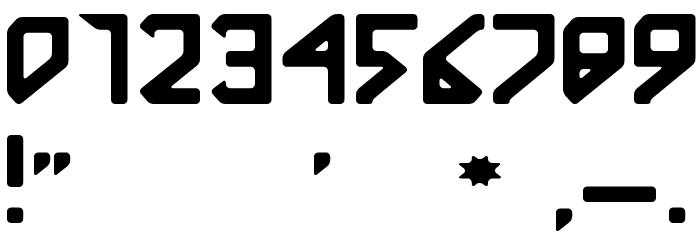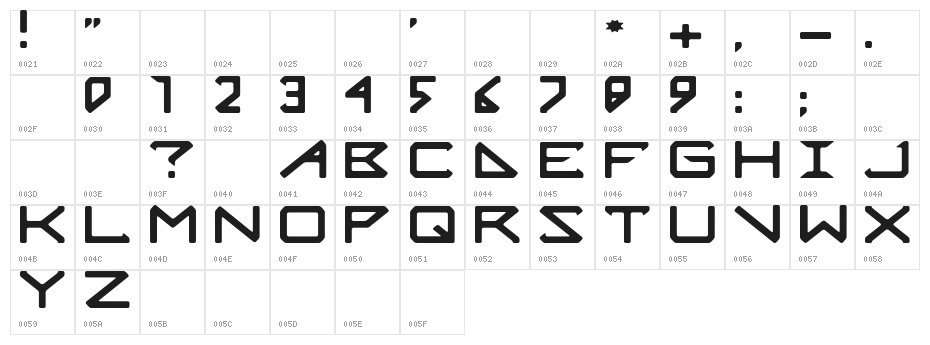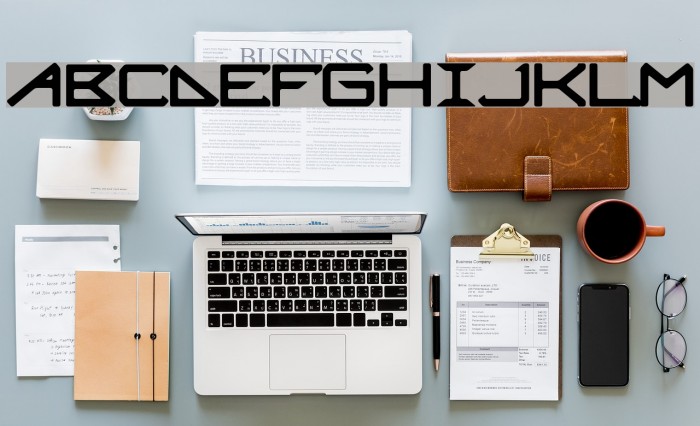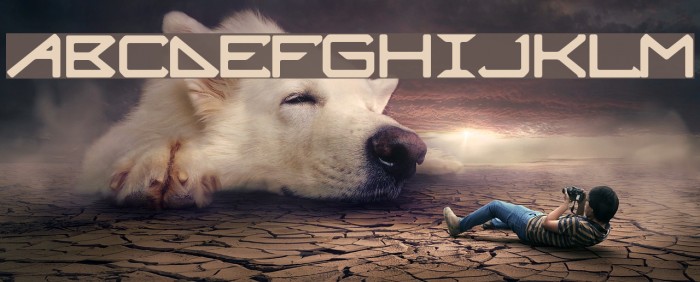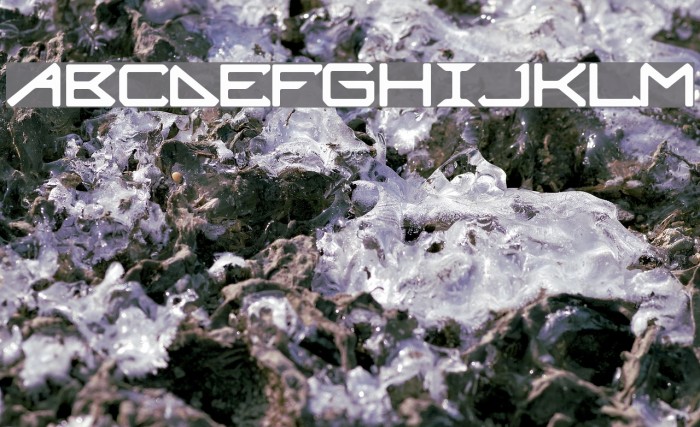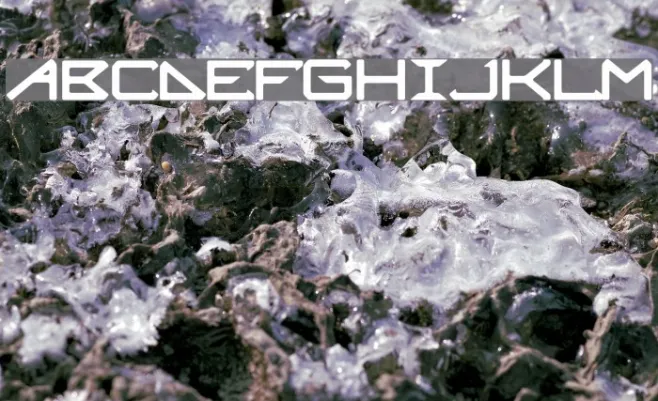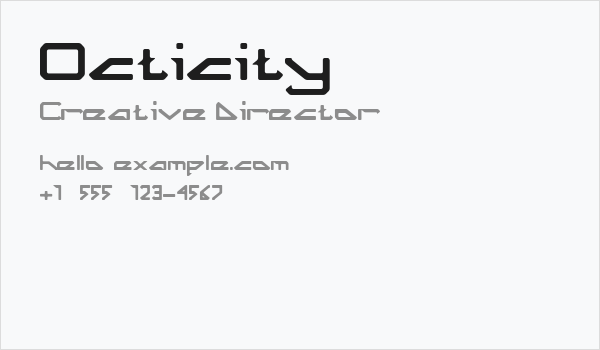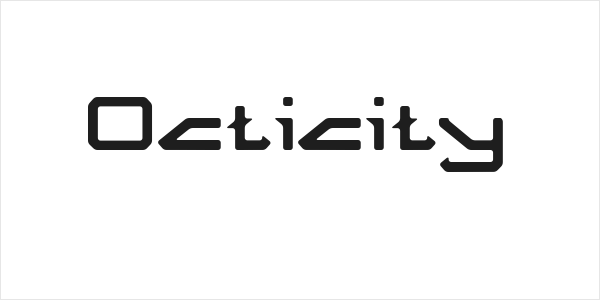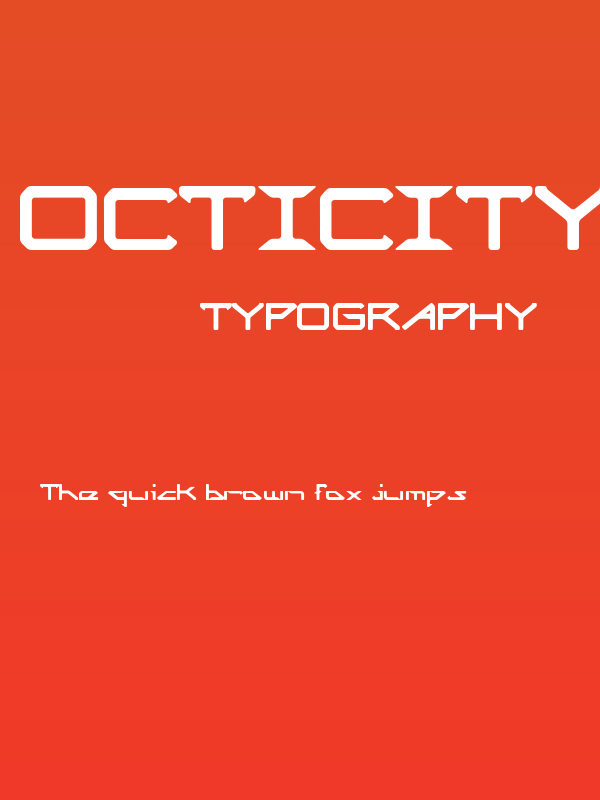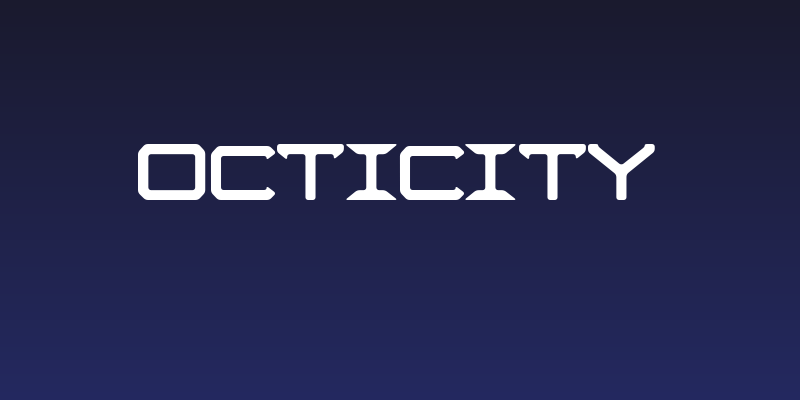
Octicity Font
Octicity Description
This font features a futuristic and geometric design, characterized by sharp angles and clean lines. The uppercase letters have a distinct angularity, with some characters incorporating unique cutouts and slashes that add a dynamic feel. The lowercase letters maintain a similar style, ensuring consistency throughout the typeface. Numbers are bold and follow the same geometric pattern, making them highly legible. Special characters are designed to match the overall aesthetic, with a modern twist. The font's design is ideal for projects that require a contemporary and edgy look, such as technology-related branding or modern art displays.
| Proposed Projects | Ideal for technology branding, modern art displays, and futuristic-themed designs. |